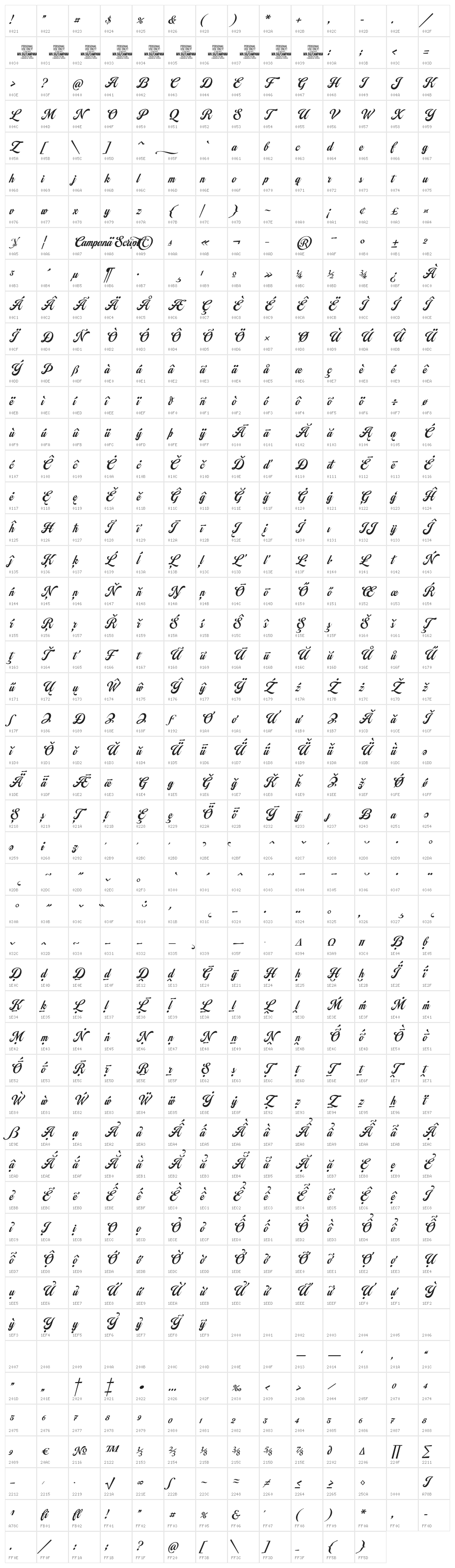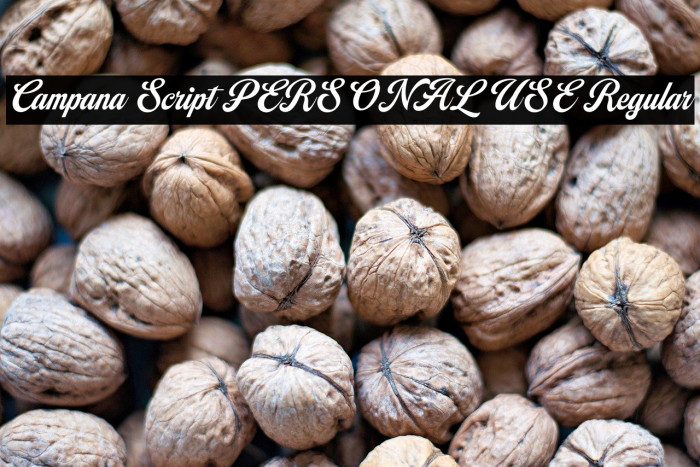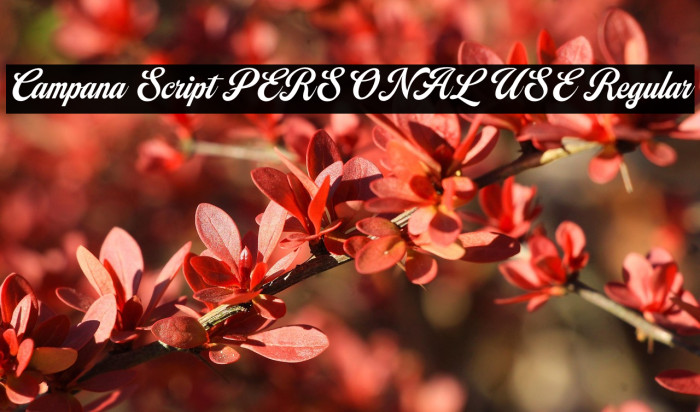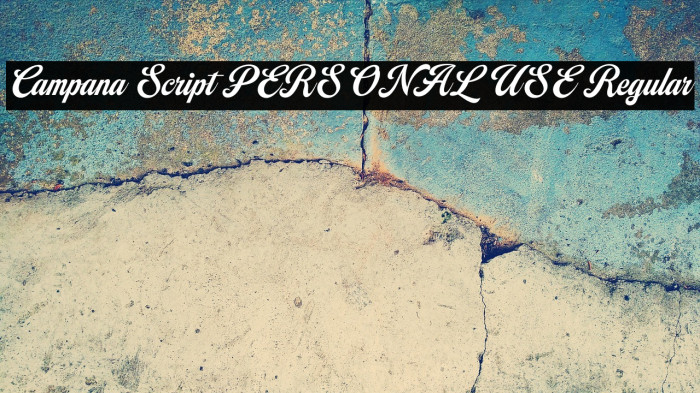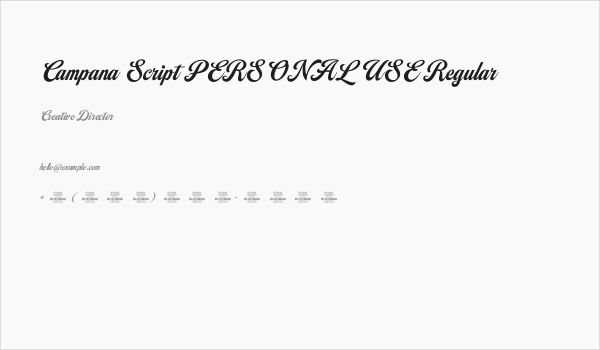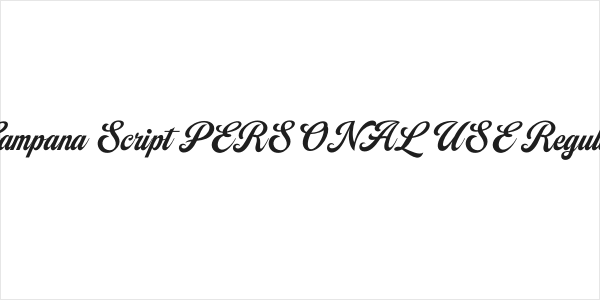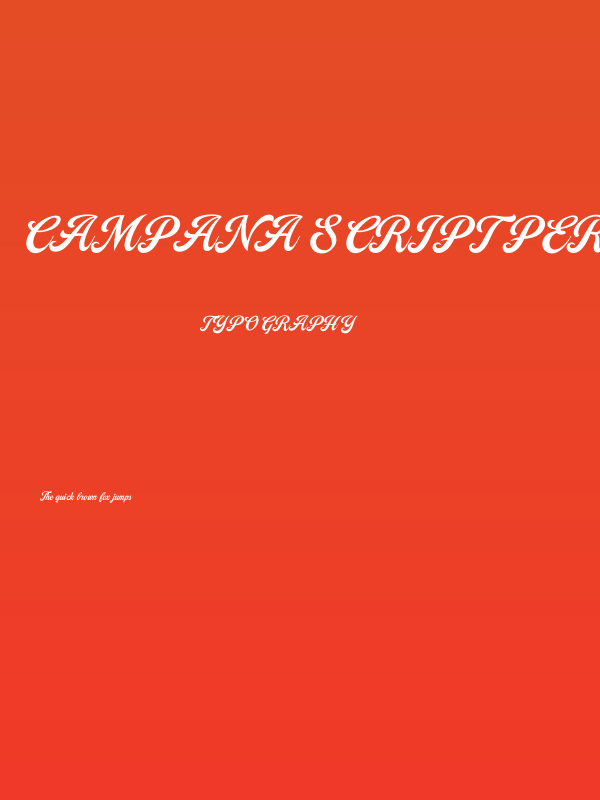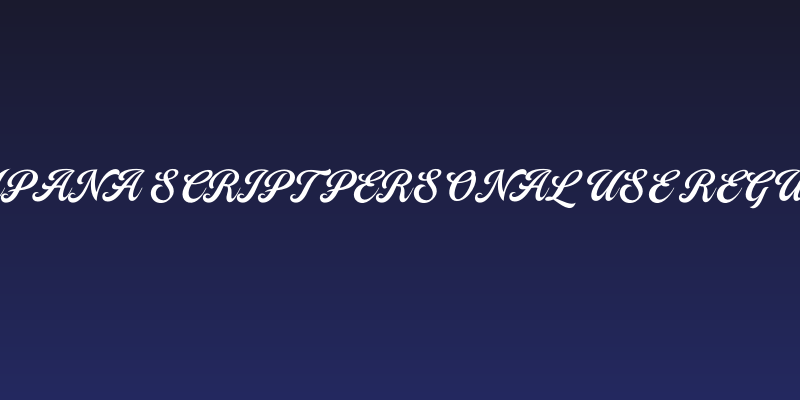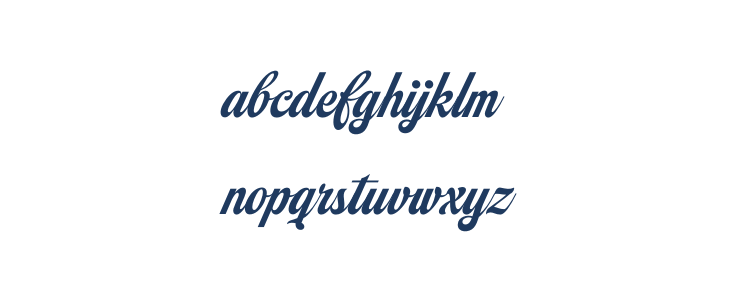
Campana Script PERSONAL USE Regular Font
Campana Script PERSONAL USE Regular Description
This font exudes elegance and sophistication with its flowing script style. The characters are beautifully crafted with smooth, sweeping curves and a sense of fluidity that mimics handwriting. The uppercase letters are particularly ornate, featuring intricate loops and flourishes that add a touch of grandeur. The lowercase letters maintain a consistent style, offering a harmonious blend of readability and decorative flair. The numerals and special characters are designed to complement the overall aesthetic, ensuring a cohesive look across all text elements. This font is ideal for projects that require a touch of elegance and personal charm.
| Overall Style | Elegant, Decorative |
| Use Case | Headlines, Invitations, Branding |
| Proposed Projects | Ideal for wedding invitations, elegant branding, personal stationery, and decorative headlines. |